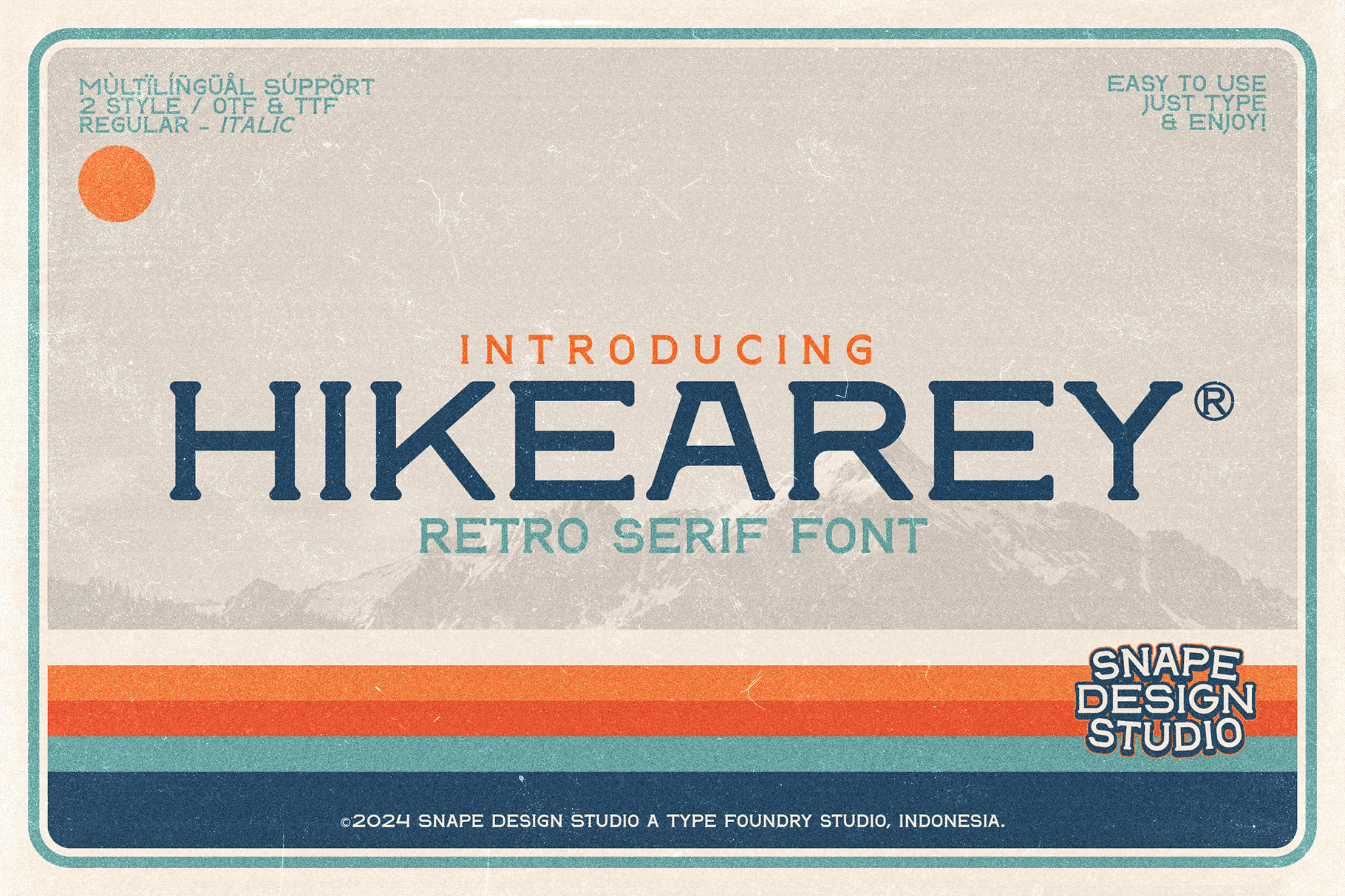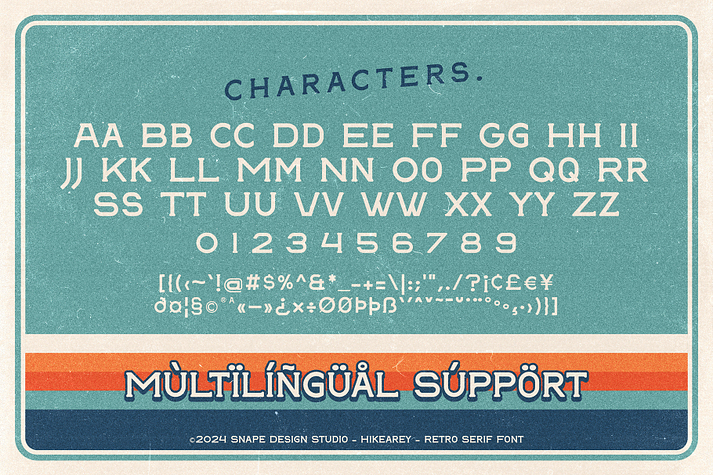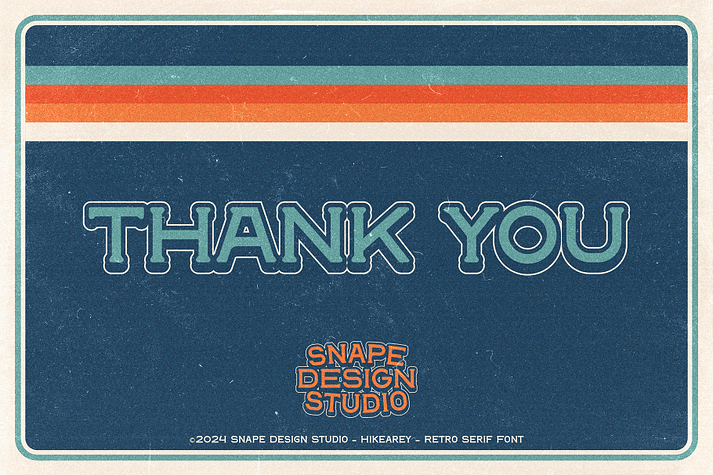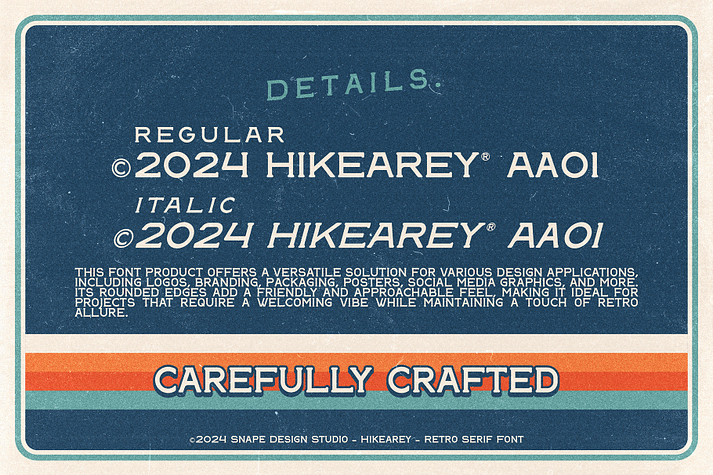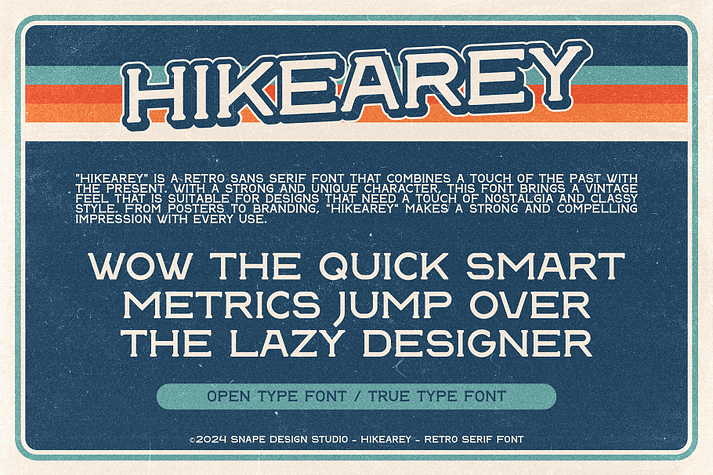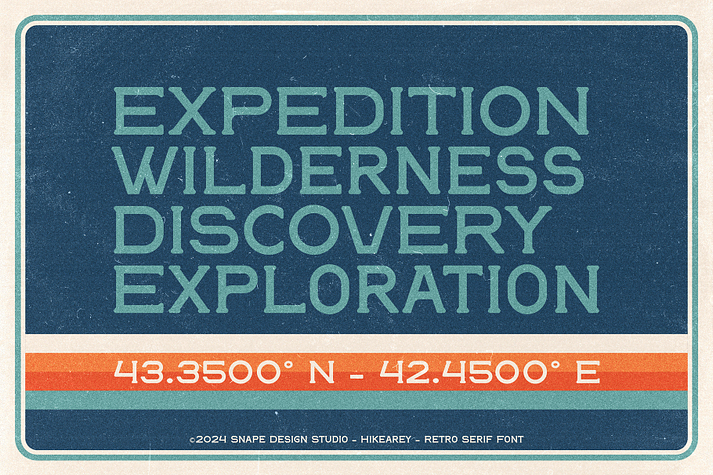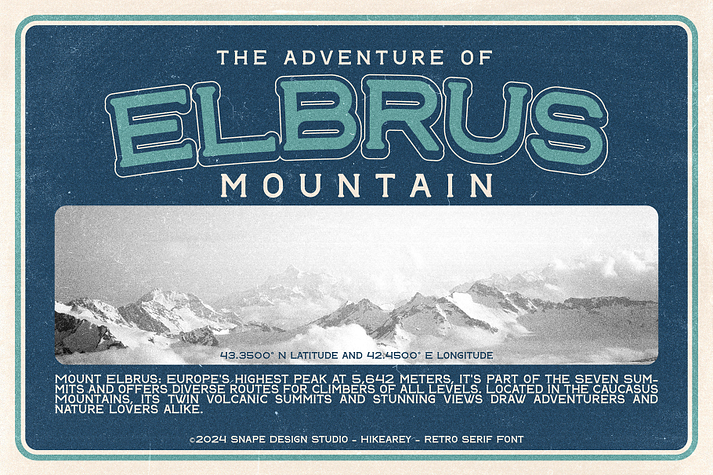
Hikearey
Hikearey is a display serif font family. This typeface has two styles and was published by Snape Design Studio.
Hikearey, a retro serif font, exudes vintage allure with its classic design. Inspired by mid-century typography, it adds a nostalgic touch to any project, evoking a sense of timeless elegance. Perfect for bringing a hint of the past into modern designs.